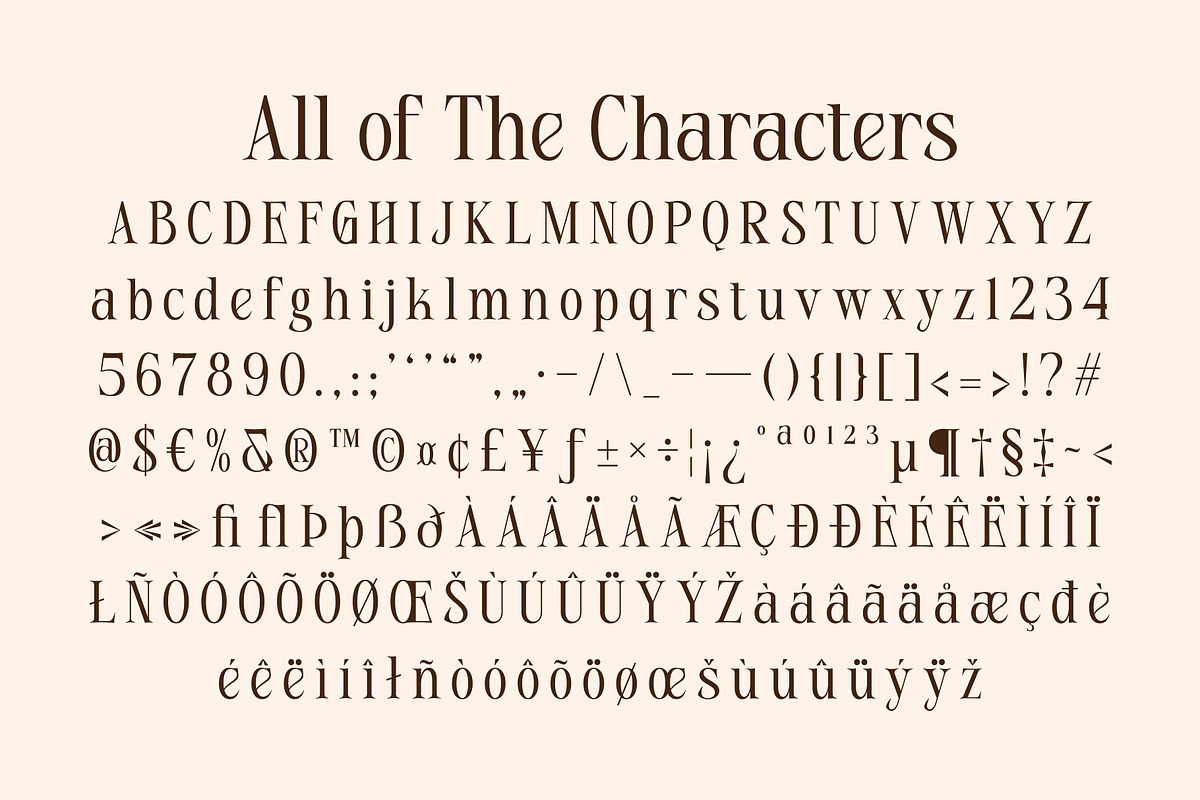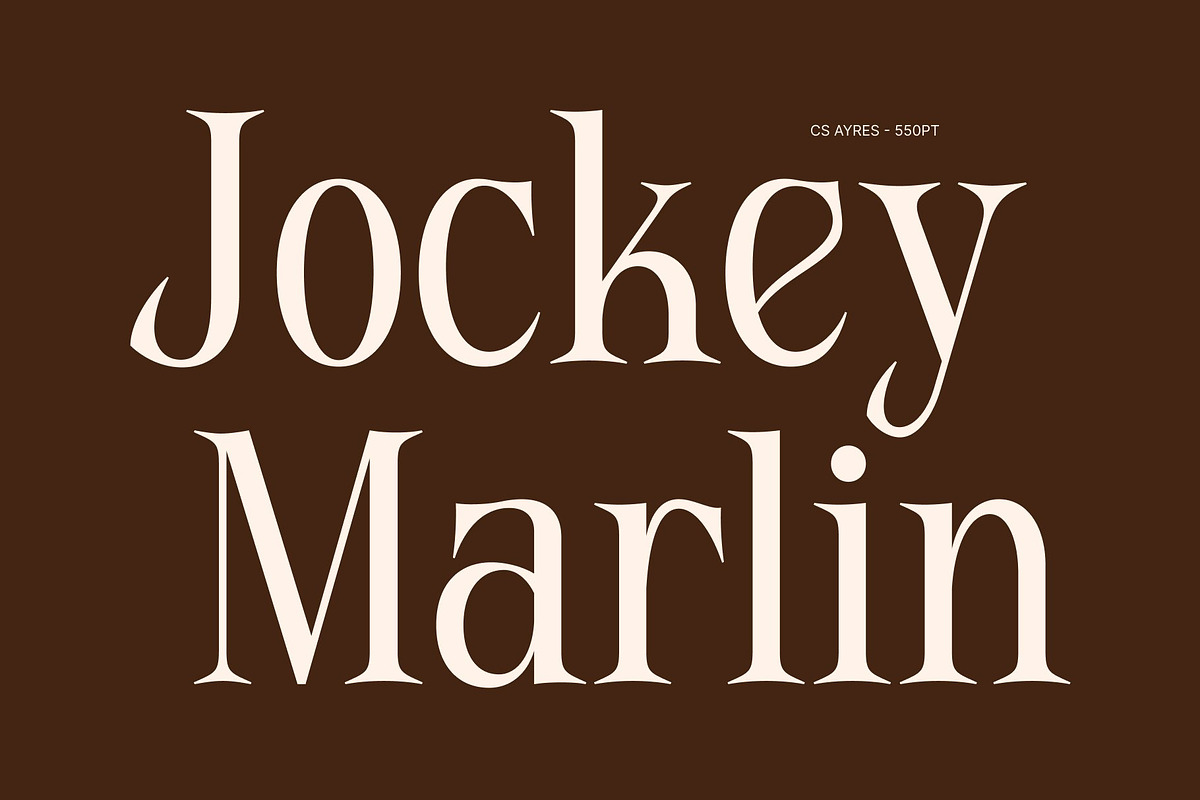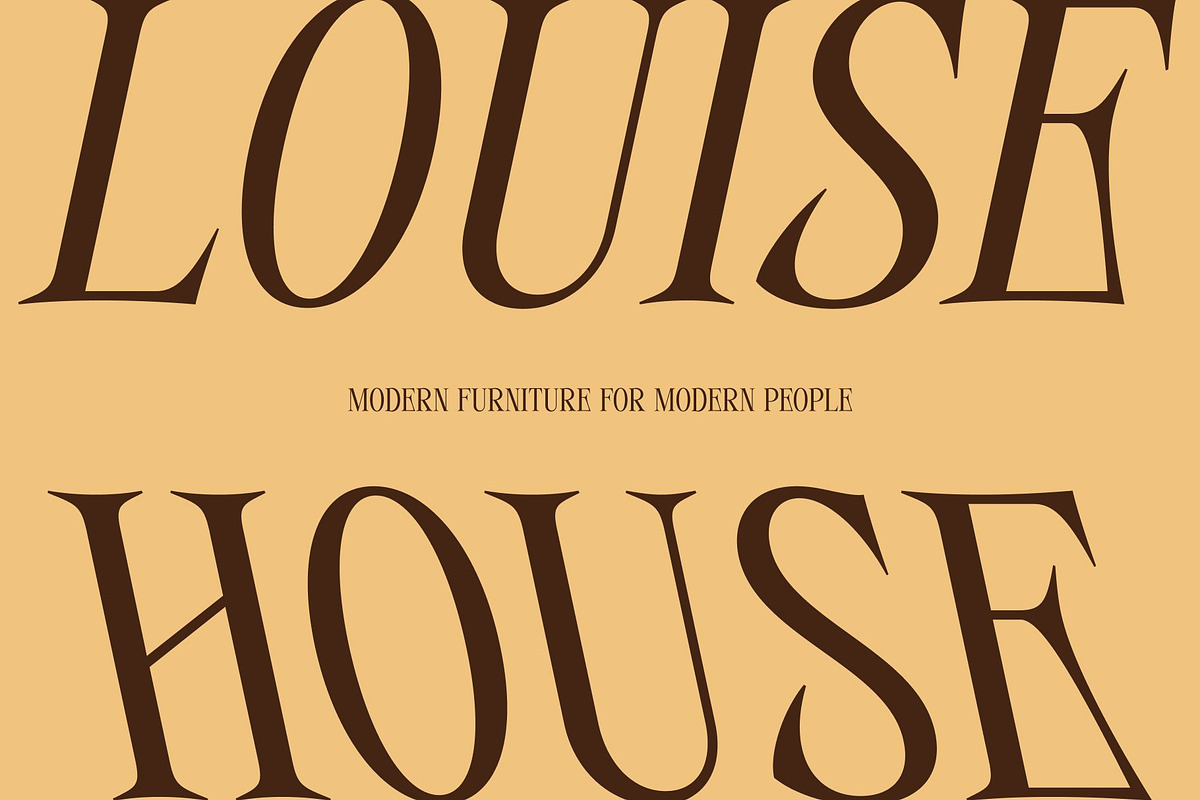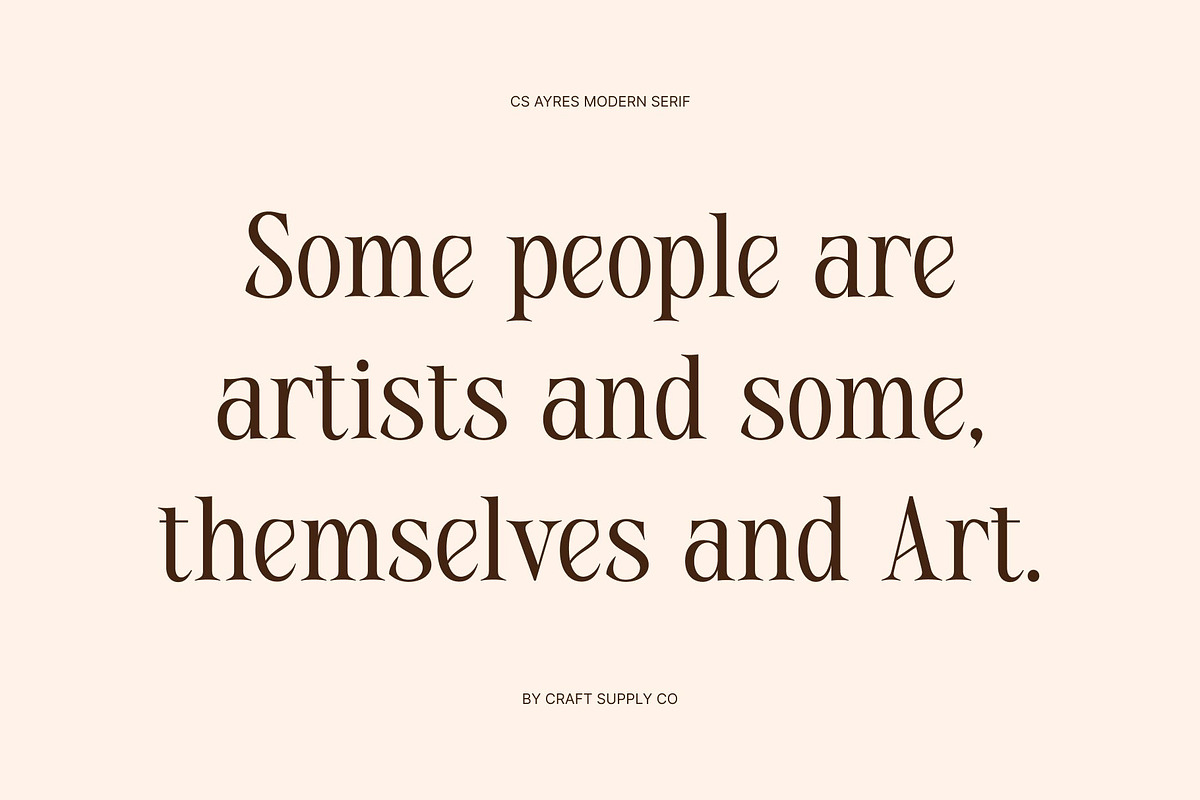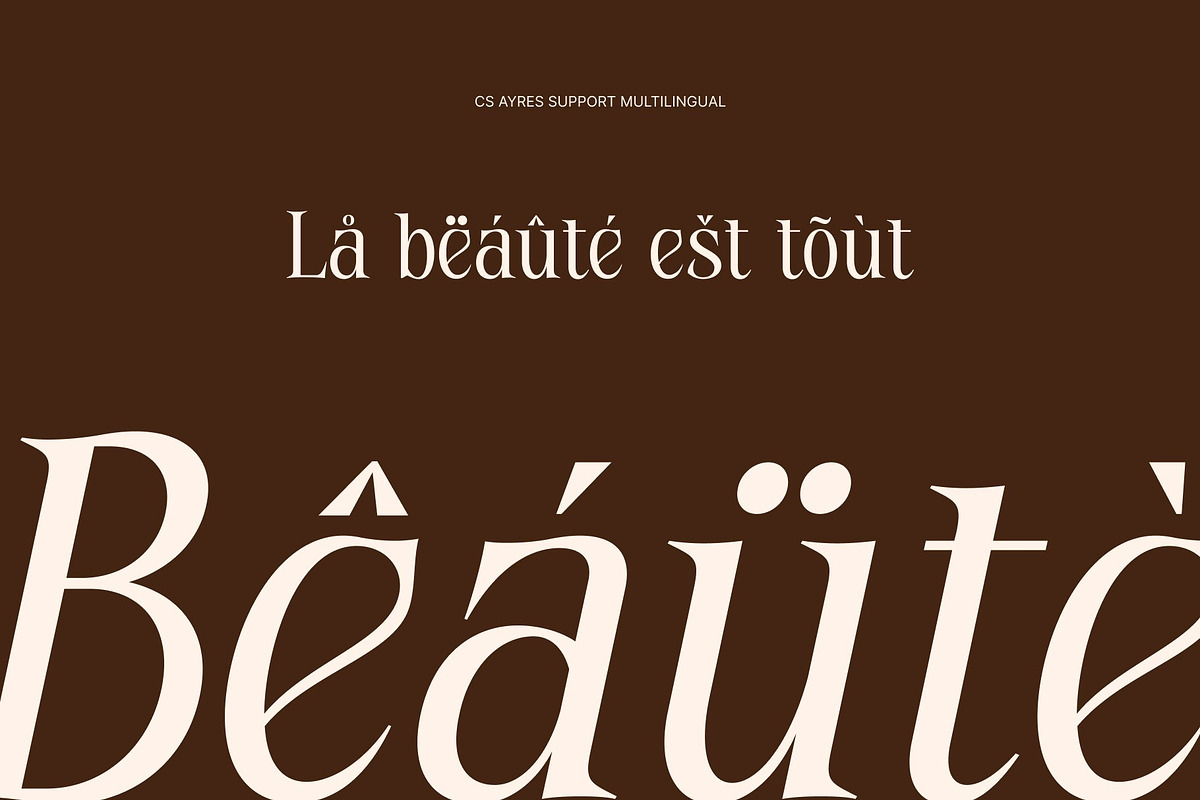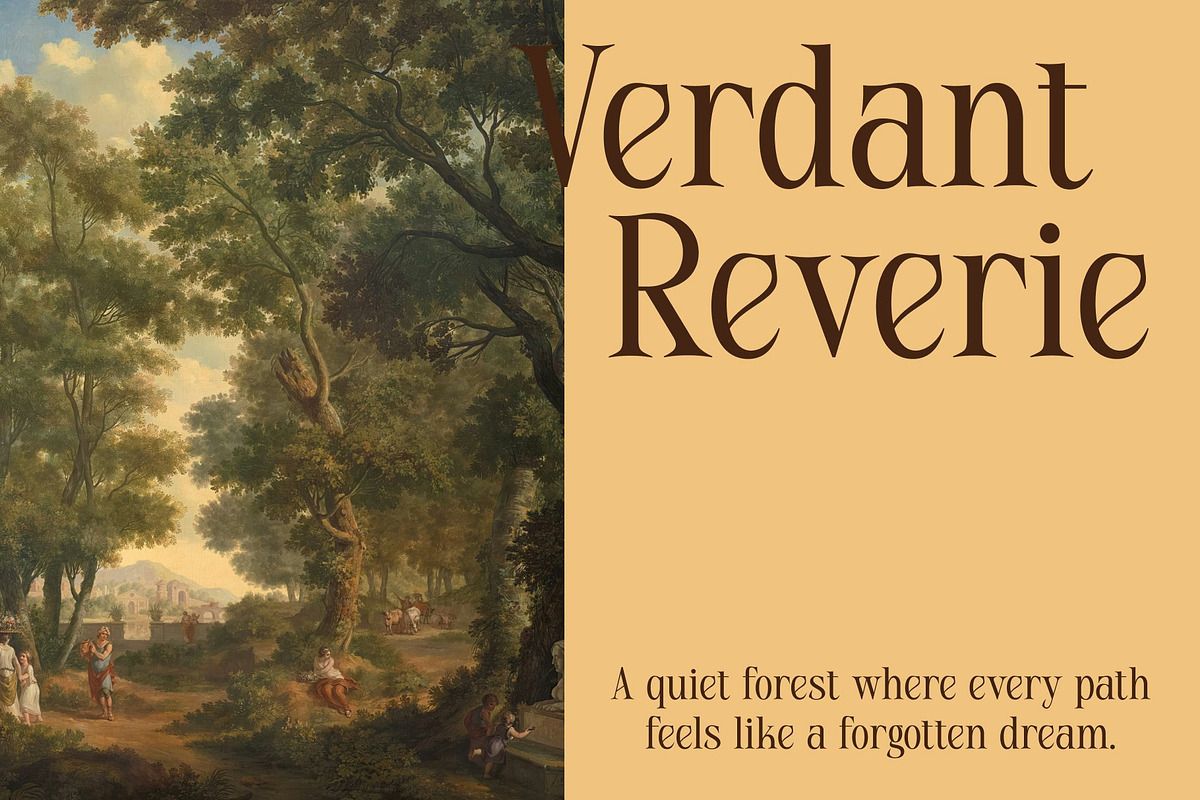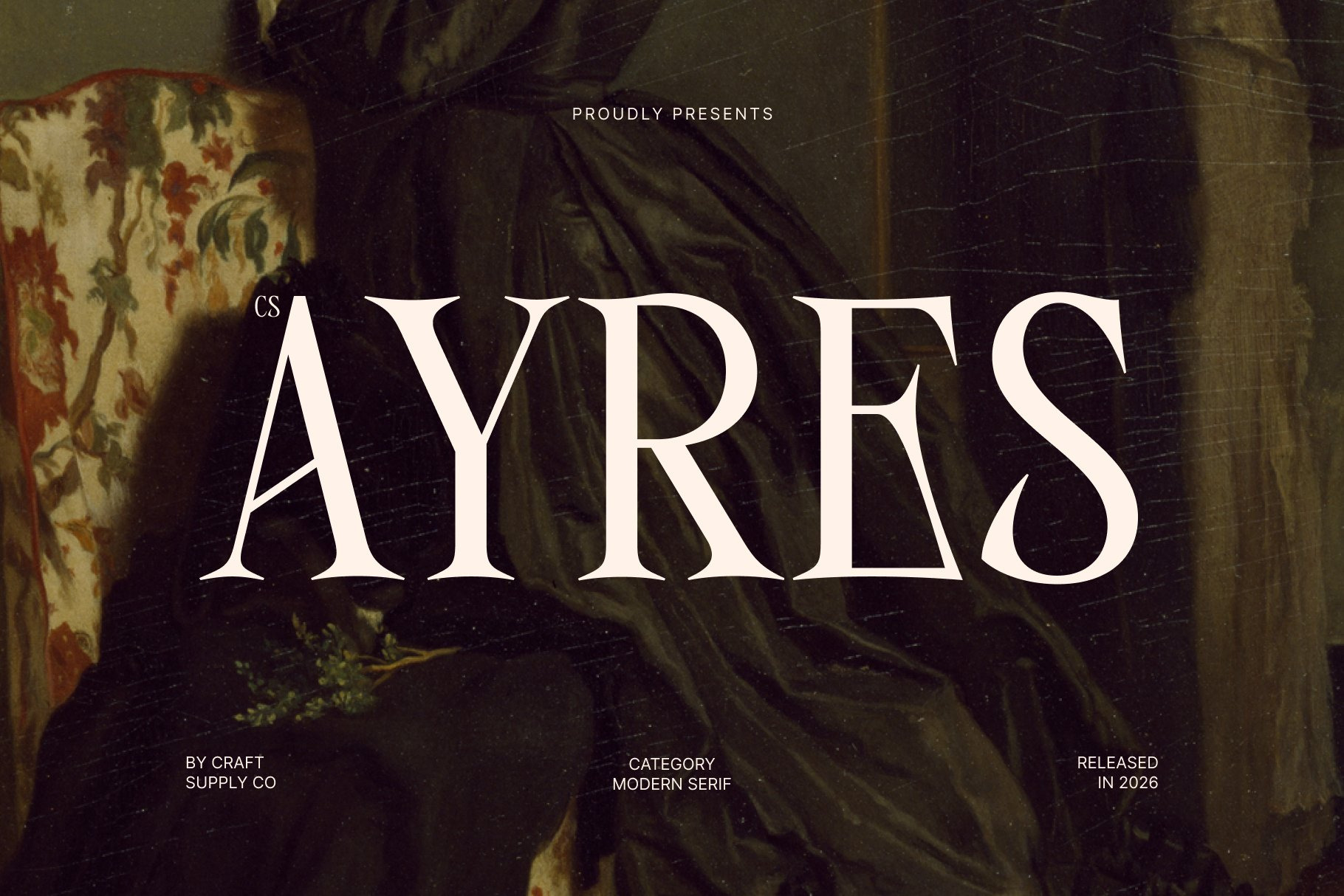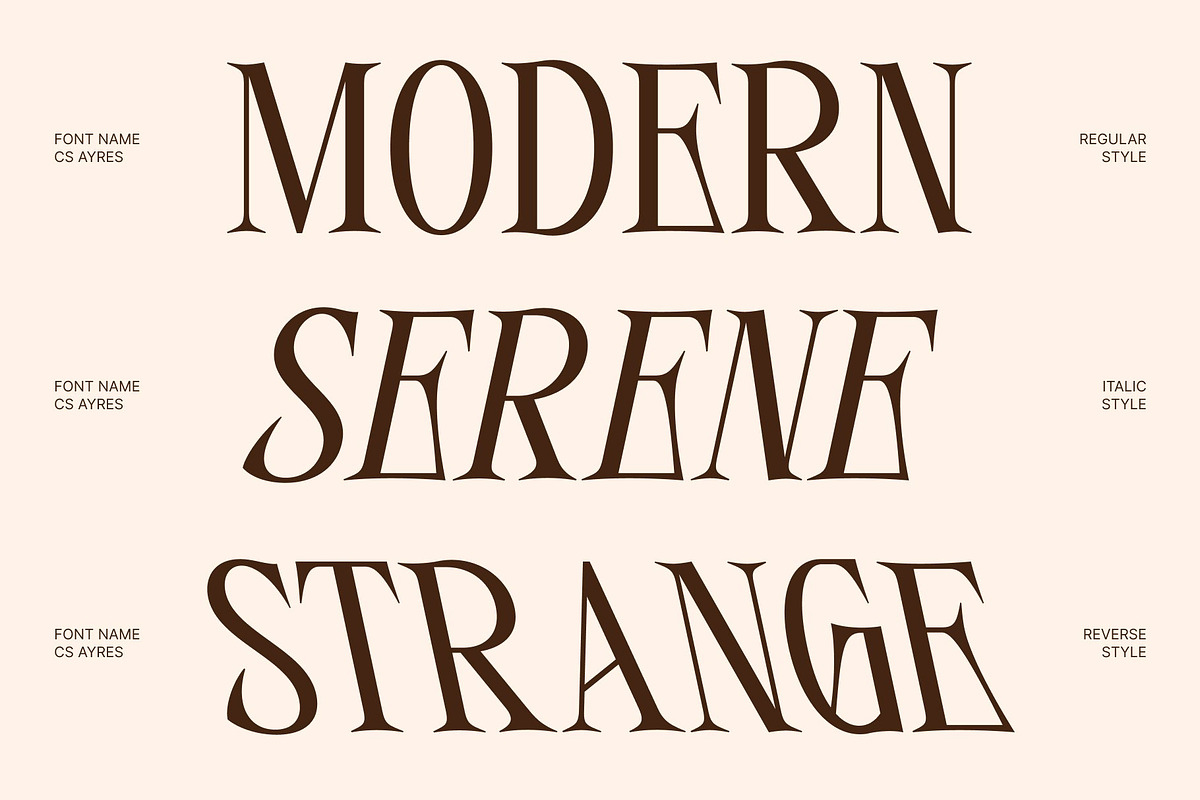
CS Ayres – Contemporary Serif Font
CS Ayres – Modern Serif with Artistic Luxury
Modern Serif with Contemporary Sophistication This is a modern serif font that combines contemporary elegance with artistic expression. Designed with refined proportions and distinctive character, this typeface delivers a luxurious visual presence while maintaining a fresh and modern appeal. It is crafted for designers who seek typography that feels creative, sophisticated, and effortlessly stylish.
Artistic Forms with Refined Character The defining beauty of this font lies in its artistic letterforms that introduce unique personality without sacrificing readability. Thoughtfully crafted curves and elegant details create a dynamic visual rhythm, giving the font a distinctive identity that feels expressive and refined. This artistic approach allows every composition to feel more memorable and visually engaging.
Luxurious Style with Modern Appeal This font balances decorative creativity with premium sophistication, resulting in a typeface that feels both fashionable and timeless. Its contemporary structure keeps the design fresh and versatile, while its luxurious character elevates the overall aesthetic. The result is a font that communicates confidence, elegance, and exclusivity.
Perfect for Branding, Fashion, and High-End Design From luxury branding and fashion campaigns to logos, magazines, and premium packaging, this font provides a versatile typographic solution. Its combination of artistic beauty, modern refinement, and luxurious style ensures your designs feel distinctive, sophisticated, and visually captivating.
CS Ayres Regular
CS Ayres Italic
CS Ayres Reverse Italic